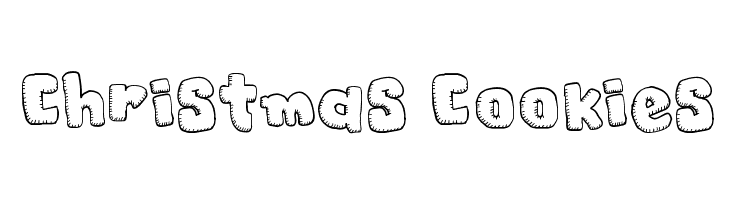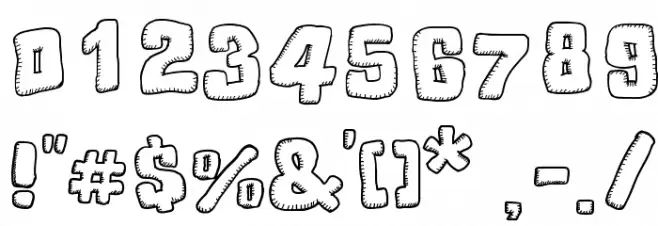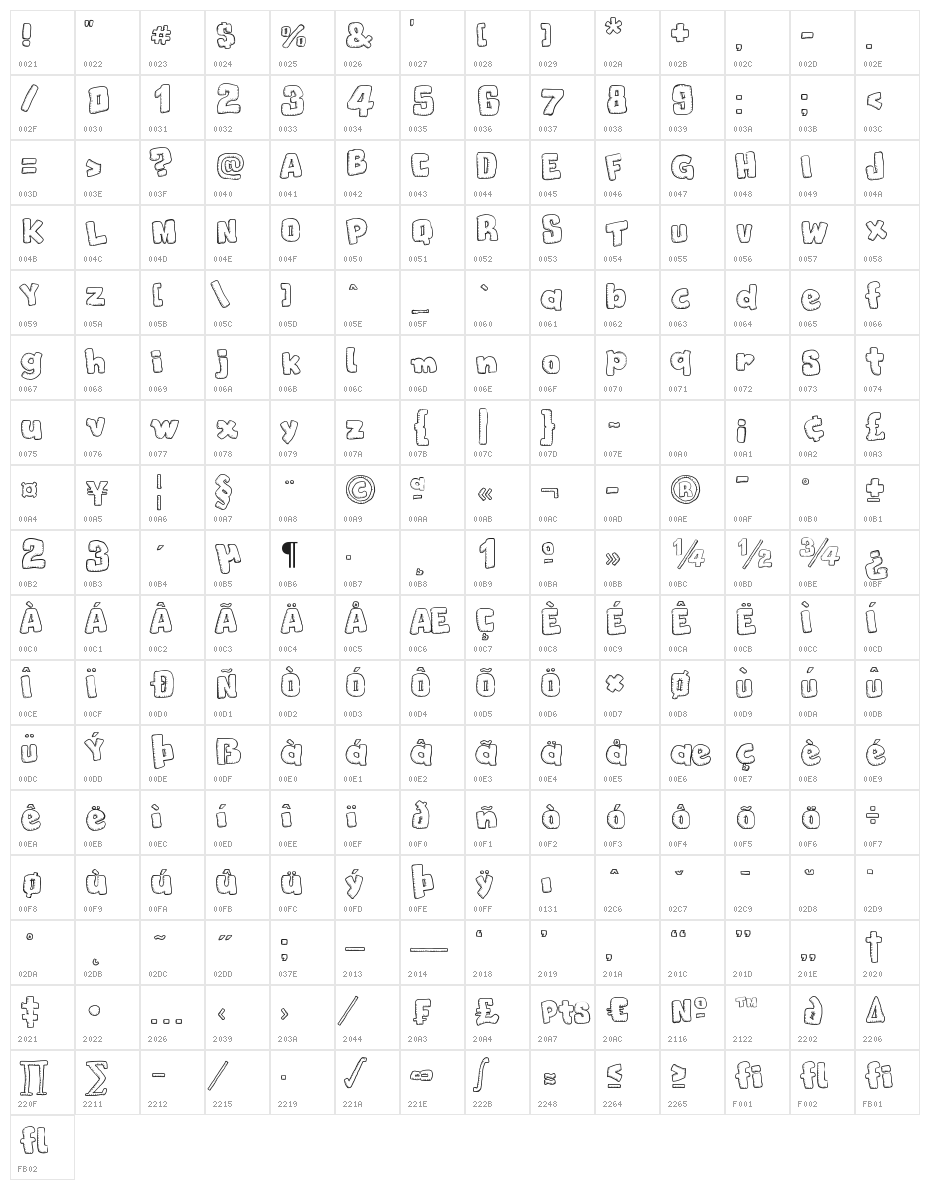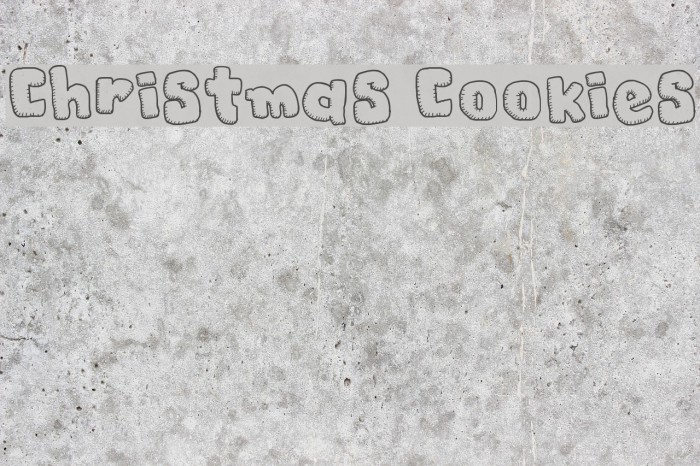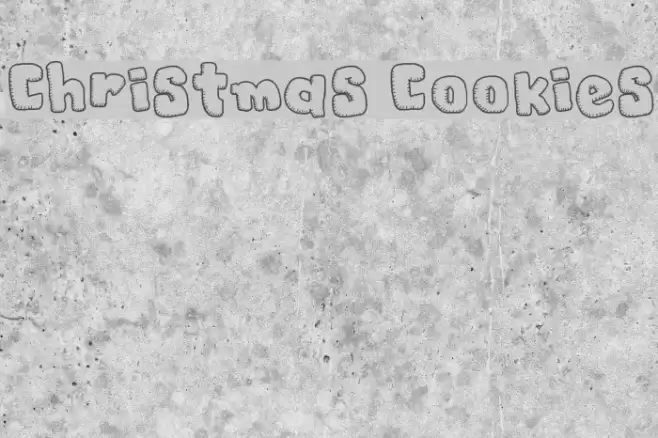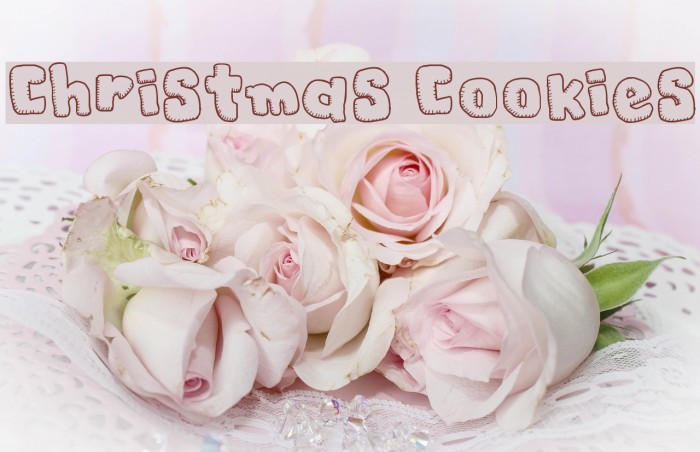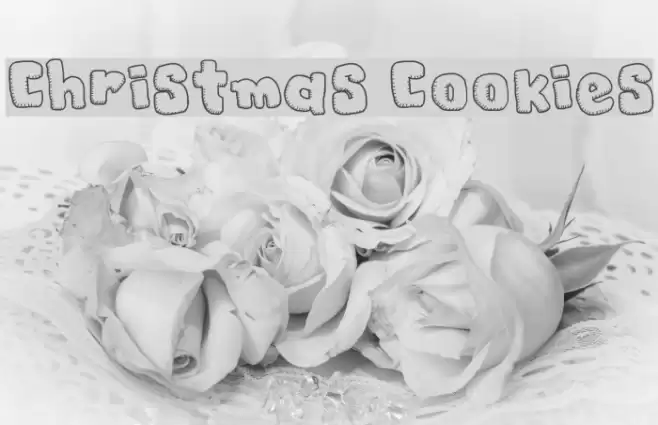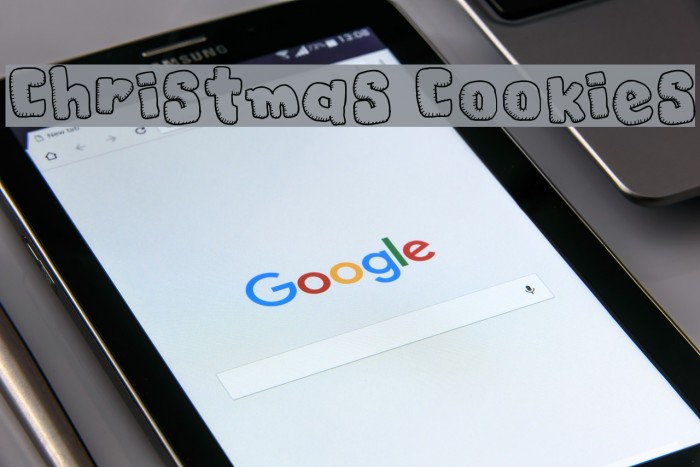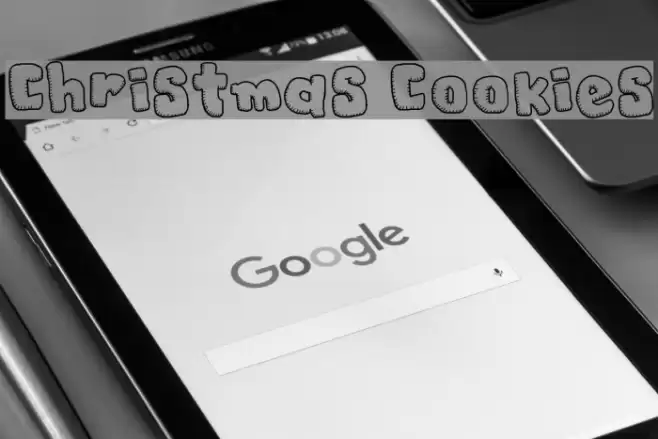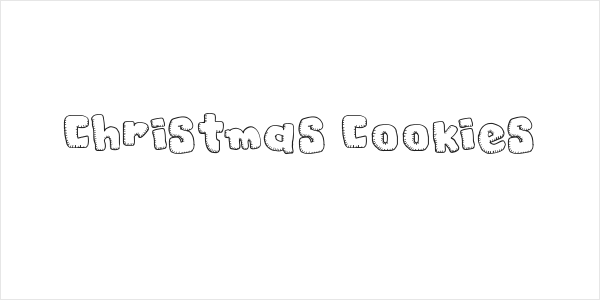
Christmas Cookies Font
Christmas Cookies Description
This playful and whimsical font features bold, rounded letters with a hand-drawn, doodle-like quality. Each character is outlined with a textured, sketchy line that adds a sense of fun and creativity. The letters are slightly irregular, giving them a homemade, crafted appearance reminiscent of festive holiday decorations or cookies. The font includes both uppercase and lowercase letters, numbers, and a variety of special characters, making it versatile for various design needs. Its unique style is perfect for projects that require a touch of charm and personality.
| Proposed Projects | Ideal for holiday-themed designs, children's books, greeting cards, and playful branding. |